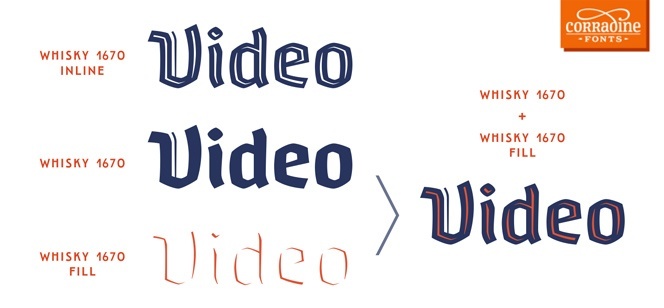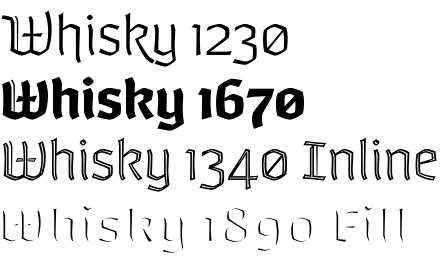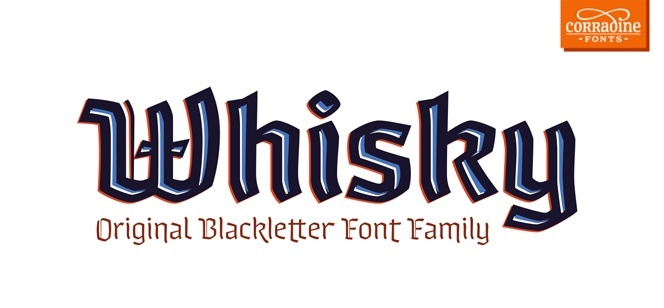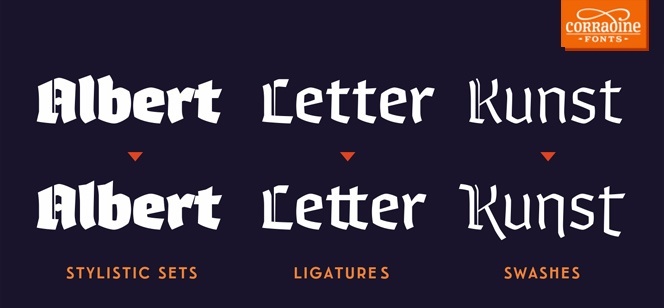
Whisky font
Many of you love blackletter typography, its majestic presence and historic spirit, many of you have also had troubles with reading it correctly especially in some more artistic and decorative versions. Many of you have tried many times to reach the perfect combination – a blackletter style with excellent readability. We think Corradine fonts have just made great success in this with their hot new Whisky font family where you could feel the presence of Gothic letters, but at the same time you would face no troubles when reading it – it would be as easy as reading a sans serif typography with extended x-height. Even the initial letter (less or more decorated) are really easy-to-read without losing the personality and uniqueness of classic blackletter.
Corradine did a lot for improving legibility, but they actually did even more in sophisticating the whole Whisky family. First step is the multi-weight design – 7 weights from light to extra black. Each of them is developed in multilayer version as inline style and a fill style – all sharing same metrics and all fitting on one another perfectly, allowing you to choose different colors for letters and another for their inline fill. Making combinations between different weights and styles inside the family is real pleasure and fun – it’s very easy to use strong extra black weights for heavy masculine headlines, while the regulars and light styles will work perfectly for body texts. Yes, for body texts – Whisky is a blackletter family with optimized legibility due to a specific approach where the classic blackletter forms are mixed with elements of modern sans serif typography. The result is really amazing and yes, you are free to use Whisky for long text paragraph, columns, etc., even go below 8 points without losing font’s character or readability.
Whisky is great for editorial design with prominent historic presence, posters, beer and wine labels, strong brand names and even logos. An OpenType compatible software will let you unlock lots of alternative symbols like ligatures, multilingual characters, stylistic alternates, contextual swashes and many other extras. Whisky family is great choice for blackletter typography where legibility meets the authentic historic style.
Designers: Sergio Ramírez, Manuel Eduardo Corradine